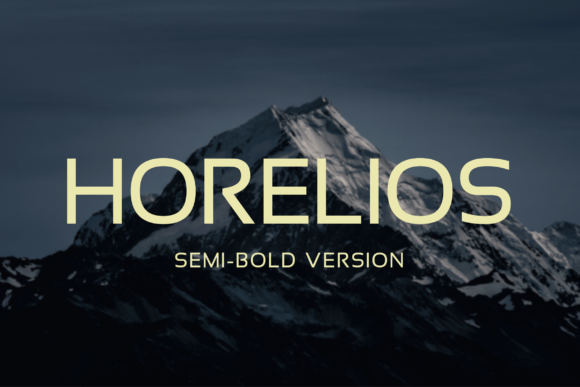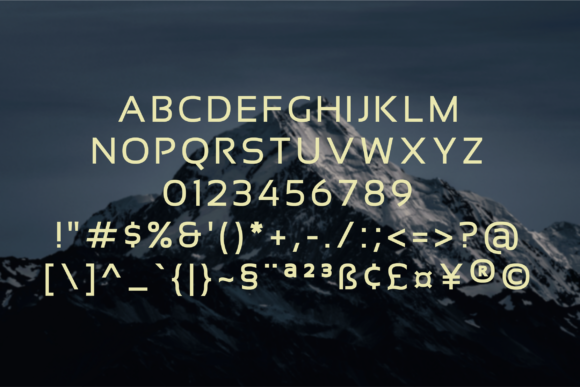
HomeSans Serif FontsHorelios Semi-Bold Font Sans Serif Fonts Horelios Semi-Bold Font FacebookXPinterestWhatsApp Horelios Semi-Bold Font 1 of 2 About Horelios Semi-Bold Font Horelios is a minimalistic, timeless, and stunning all caps sans serif font that looks beautiful in layouts, headers, web, and many other contexts! DOWNLOAD NOW People also explored Voguish Font Daddy Font Handles Font Torrential Rain Font Groovy Think Pink Font Wedding Font Modern Fantasy Hangbang Font Uncle Rhocky Font 518 0 TagsHorelios Semi-Bold Font Previous articleHorelios Bold FontNext articleQuinestha Medium Font LEAVE A REPLY Cancel reply Comment: Please enter your comment! Name:* Please enter your name here Email:* You have entered an incorrect email address! Please enter your email address here Website: Save my name, email, and website in this browser for the next time I comment. Personal Use Free The Sweet Neo Personal Use Free Read more about this font Welliana Personal Use Free Read more about this font BD Alm Personal Use Free Read more about this font Retro Free Personal Use Free Read more about this font BLOG Best Fonts for T-Shirt Design – Top 2025 Picks In 2025, t-shirt design has become more than just fashion—it's a form of self-expression. Whether you're... Using Fonts in Digital Marketing: Tips to Strengthen Your Brand Identity The 10 Best Handwriting Fonts to Add Personality to Your Designs To increase your work productivity, choose the most readable fonts.